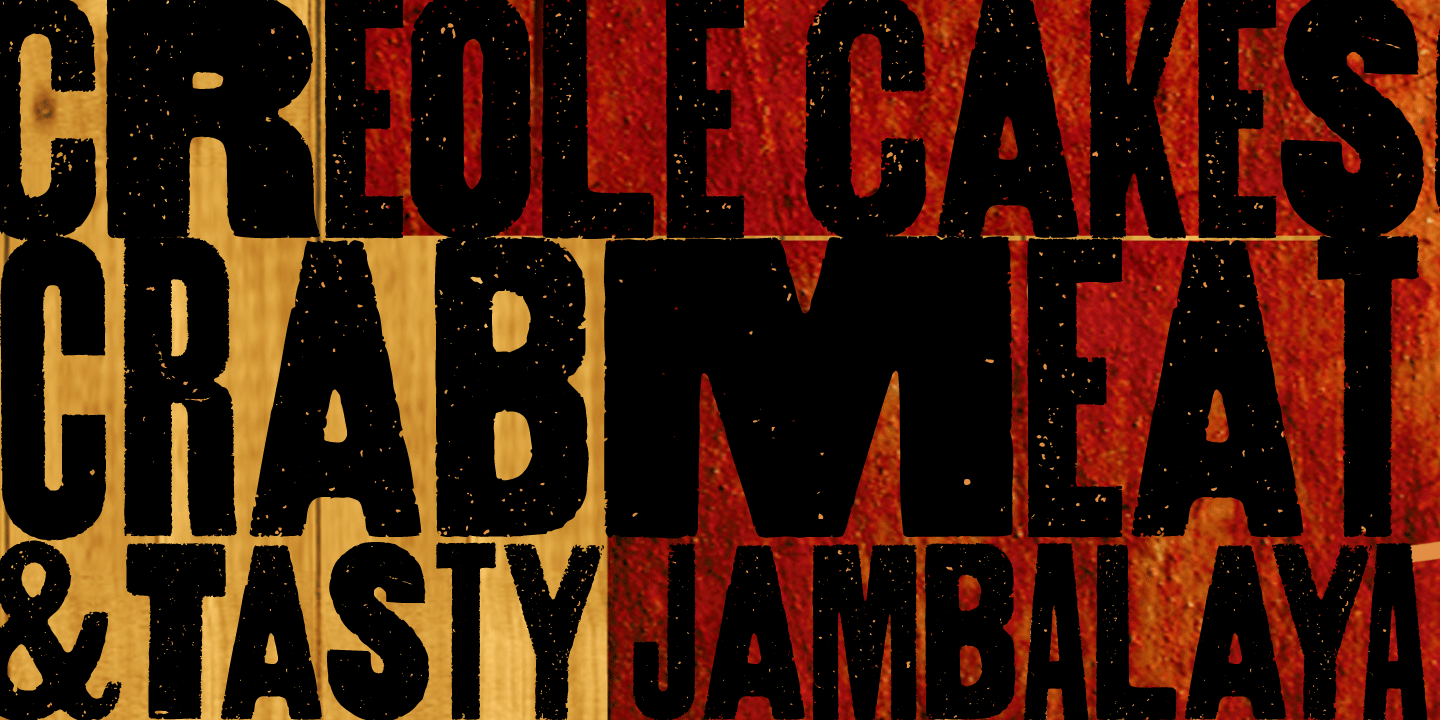
Thunderhouse Font Free Download – A Bold & Industrial Typeface for Powerful Branding
Looking for a font that commands attention with rugged strength? Thunderhouse Font Free Download delivers a heavy, industrial-inspired design perfect for motorsports, construction brands, music posters, and any project needing raw, masculine energy. Its chunky letterforms and mechanical aesthetic create instant impact.
Why Choose Thunderhouse Font?
Thunderhouse Font Free Download stands out with its powerful features:
Heavy, blocky letterforms with industrial character
Perfect for automotive, engineering, and tough brands
Includes alternates for custom rugged styling
Excellent readability even in challenging environments
Thunderhouse Font Free Download – Maximum Impact Typography
Dominate your designs with this powerhouse typeface for:
Motorsports logos & racing team branding
Construction equipment & tool packaging
Gym branding & athletic apparel
Music festival posters & album artwork
Designer Tip: Combine with metal textures and grunge effects for extra ruggedness!
(Typography Tip: Use all-caps with tight spacing for maximum density and power!)